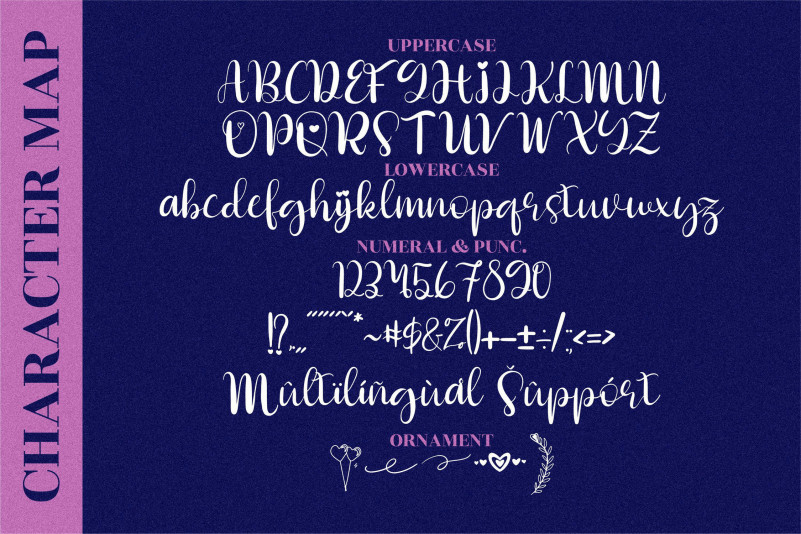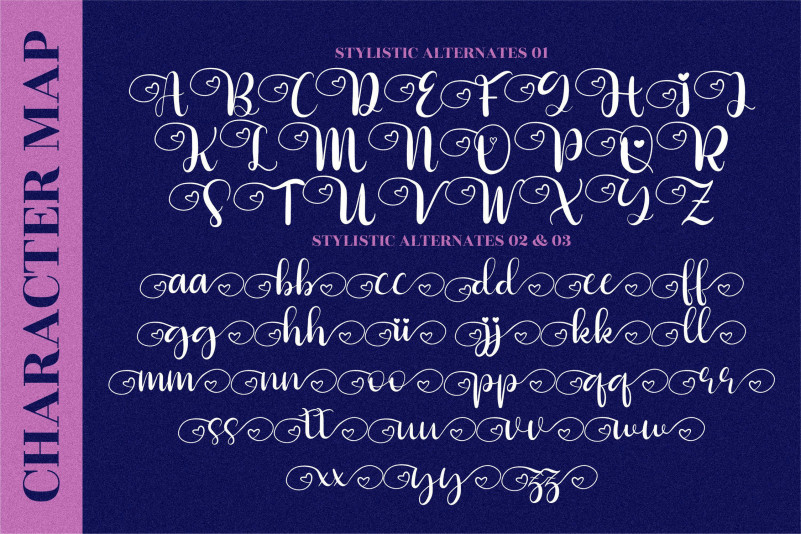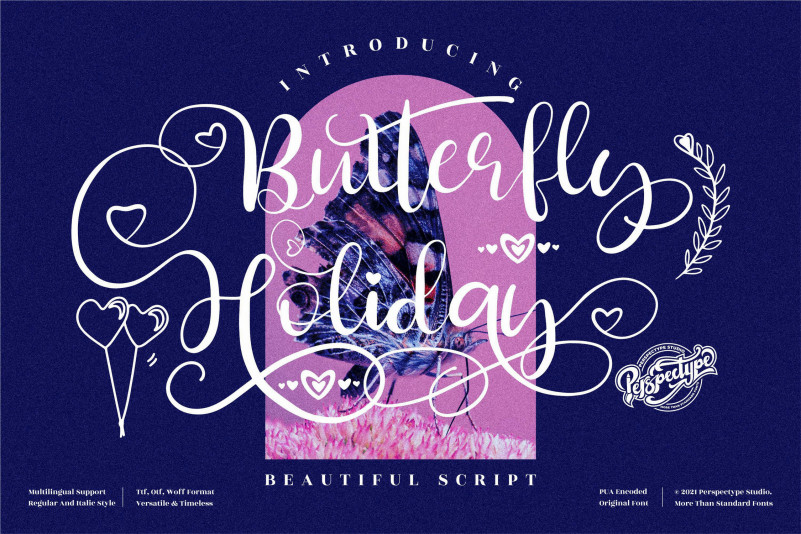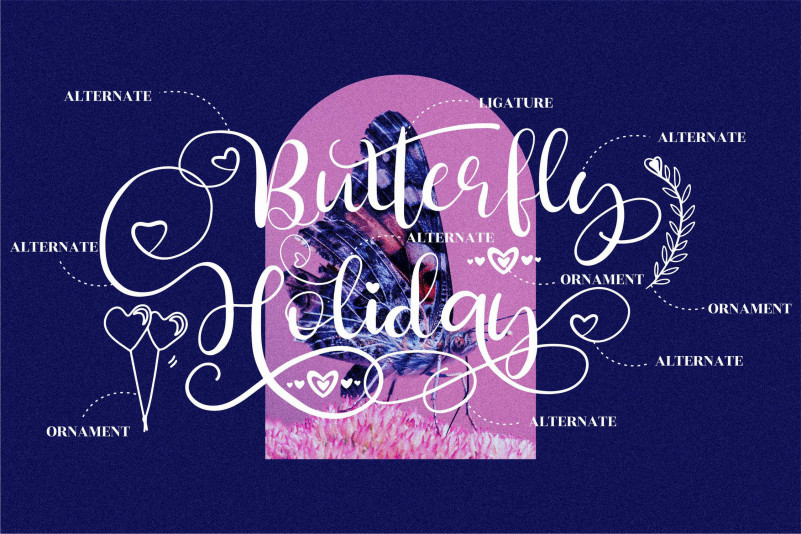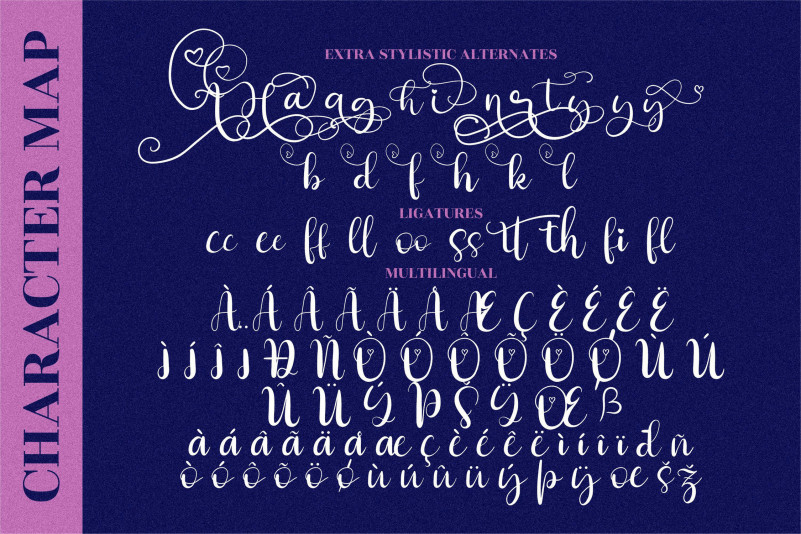
Butterfly Holiday Script Font
This is a romantic and delicate script font. This font is neatly crafted and highly detailed. Whatever the topic, this font will be a wonderful asset to your font library, as it has the potential to enhance any creation.